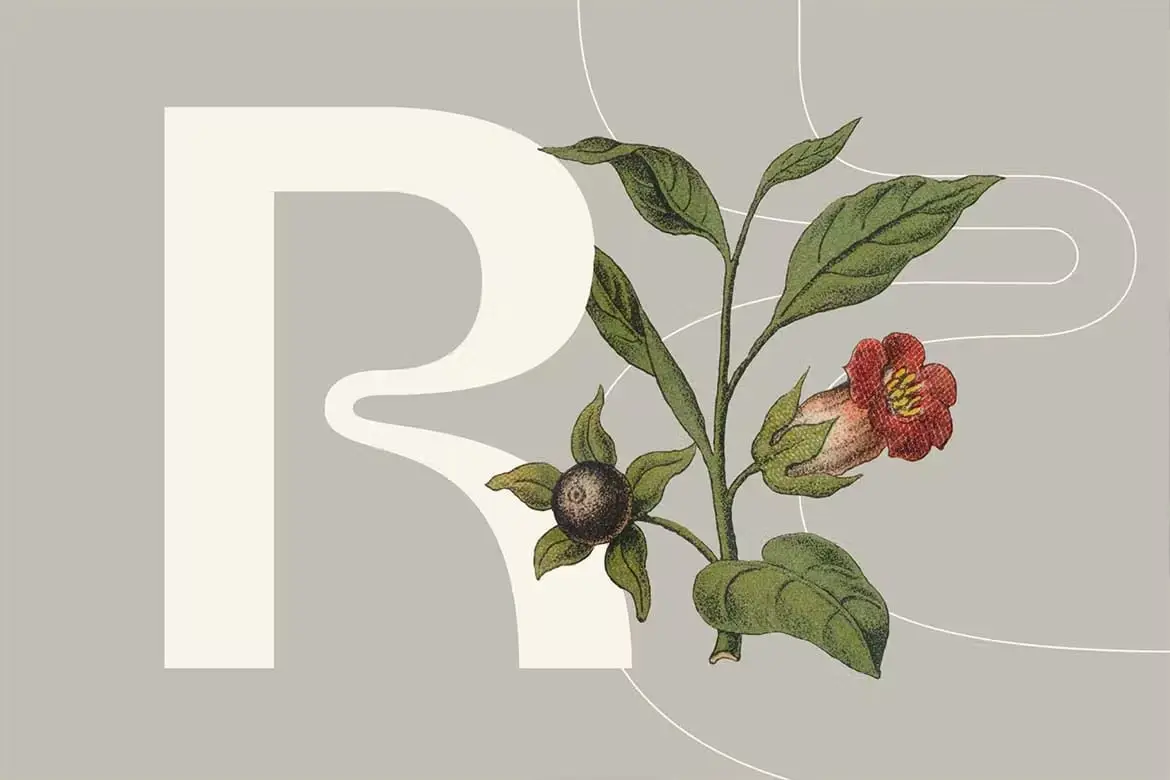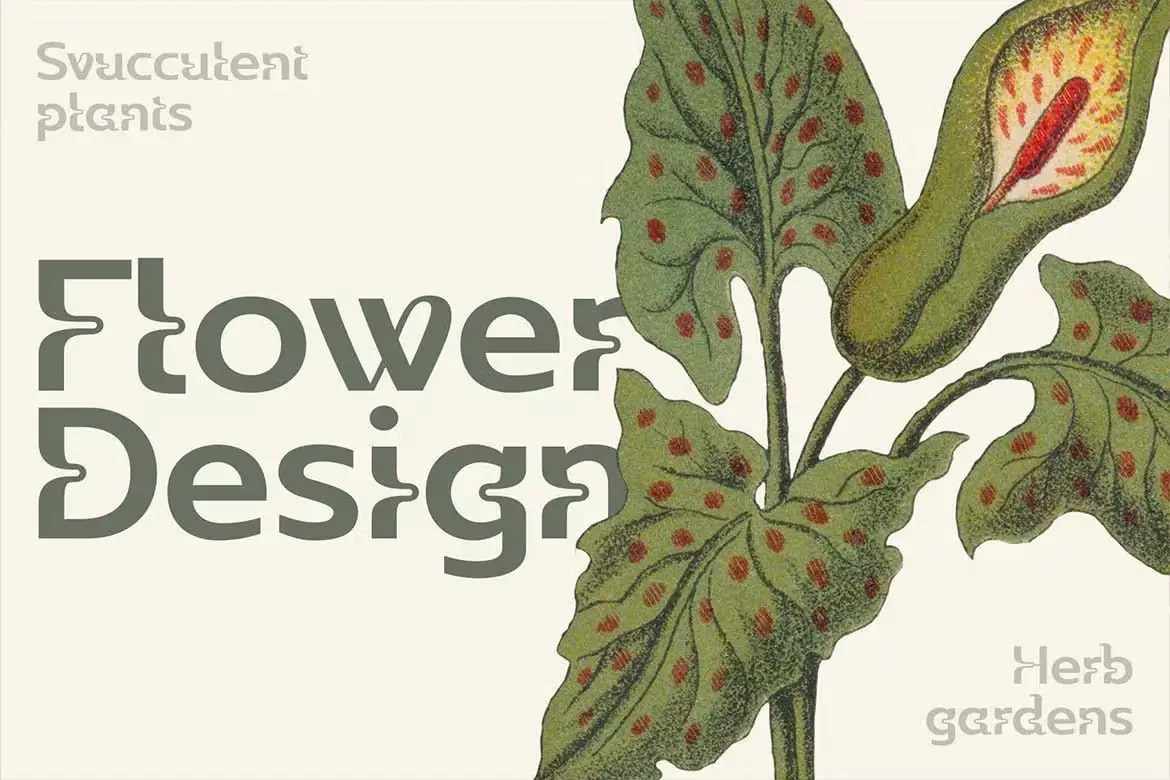
The Wildhead Display Font is a striking typeface designed to make a bold statement in your projects. With its unique character shapes and dynamic style, it is perfect for branding, logos, and eye-catching headlines.
- Distinctive display style
- Uppercase and lowercase letters
- Numerals and punctuation included
- Weights: Regular
Utilize the Wildhead Display Font for impactful branding, creative logos, and vibrant web designs. Its bold nature makes it ideal for any project that requires a strong visual presence.